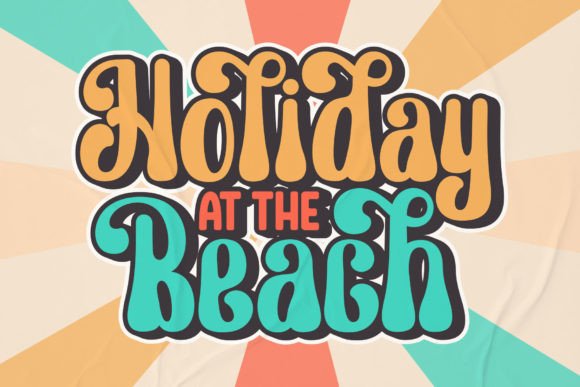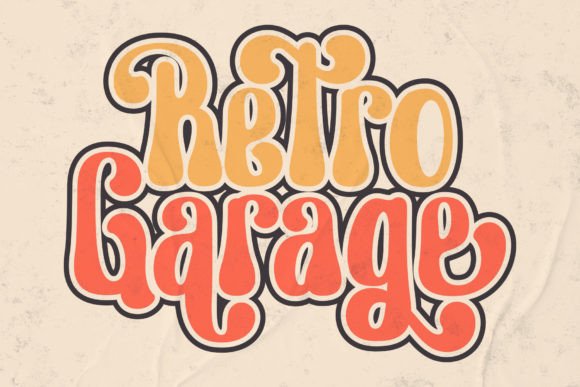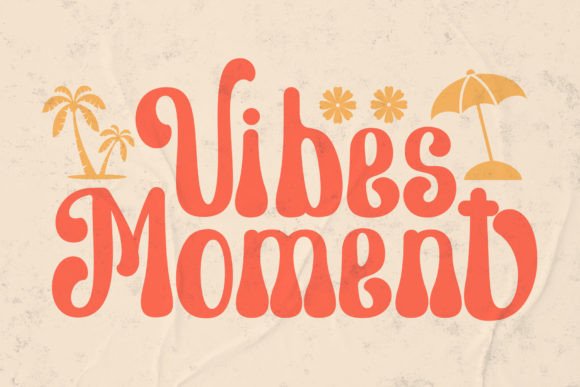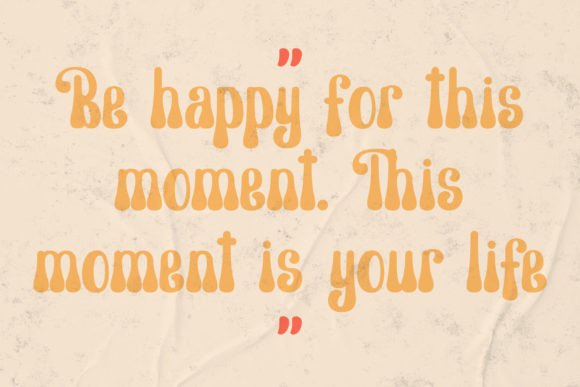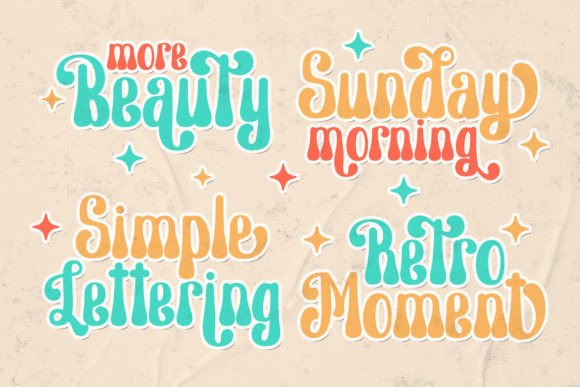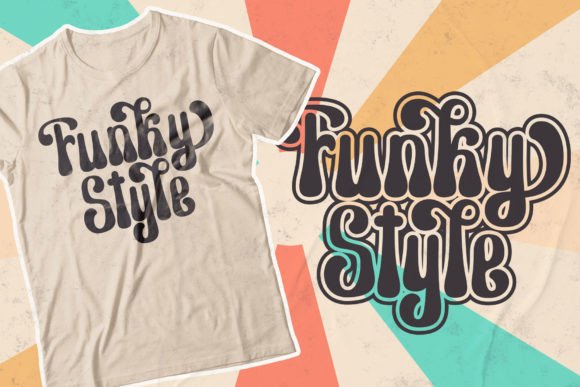
Introduction to Holla Summer Font
Holla Summer is a cool, vintage-style display font.
Use it to add that special retro touch to any design idea It can be used for logos, branding, invitations, stationery, wedding designs, social media posts, and much more.
Key Features of Holla Summer Font